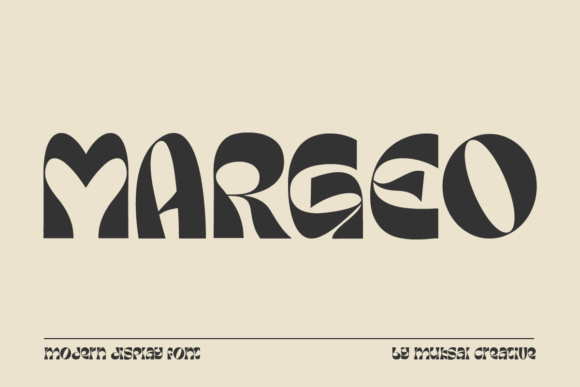
Introducing Margeo Font, the ultimate choice for anyone looking to make a stunning impression with their modern CV. Created by the talented designers at Muksal Creative, this serif font is the epitome of elegance and sophistication.
With its special glyphs, ornaments, and extensive multilingual support, Margeo Font is more than just a typeface - it's a powerful tool that will elevate your resume to new heights. Whether you're working on an editorial project, designing a captivating logo, or branding your clothing line, Margeo Font is the perfect choice.
One of the standout features of Margeo Font is its versatility. This font effortlessly adapts to both large and small sizes, ensuring that your text always looks crisp and professional. Its sleek and modern design makes it a great fit for magazine headers, product packaging, or as a stylish text overlay on any background image.
But Margeo Font isn't just about looks - it's also incredibly user-friendly. With its lowercase and uppercase options, numerals, and punctuation, you'll have all the tools you need to create a visually stunning and well-organized CV.
But what truly sets Margeo Font apart is its ability to evoke emotion and captivate your audience. The carefully chosen design elements and the attention to detail make this font a true work of art. It's the perfect choice for anyone who wants to stand out from the crowd and make a lasting impression.